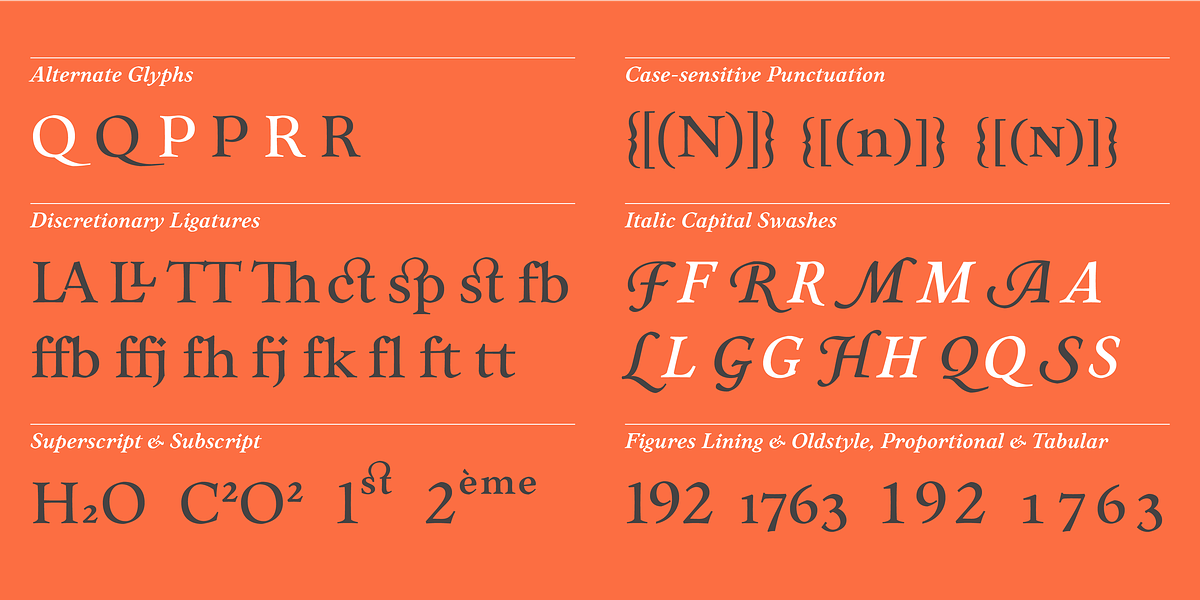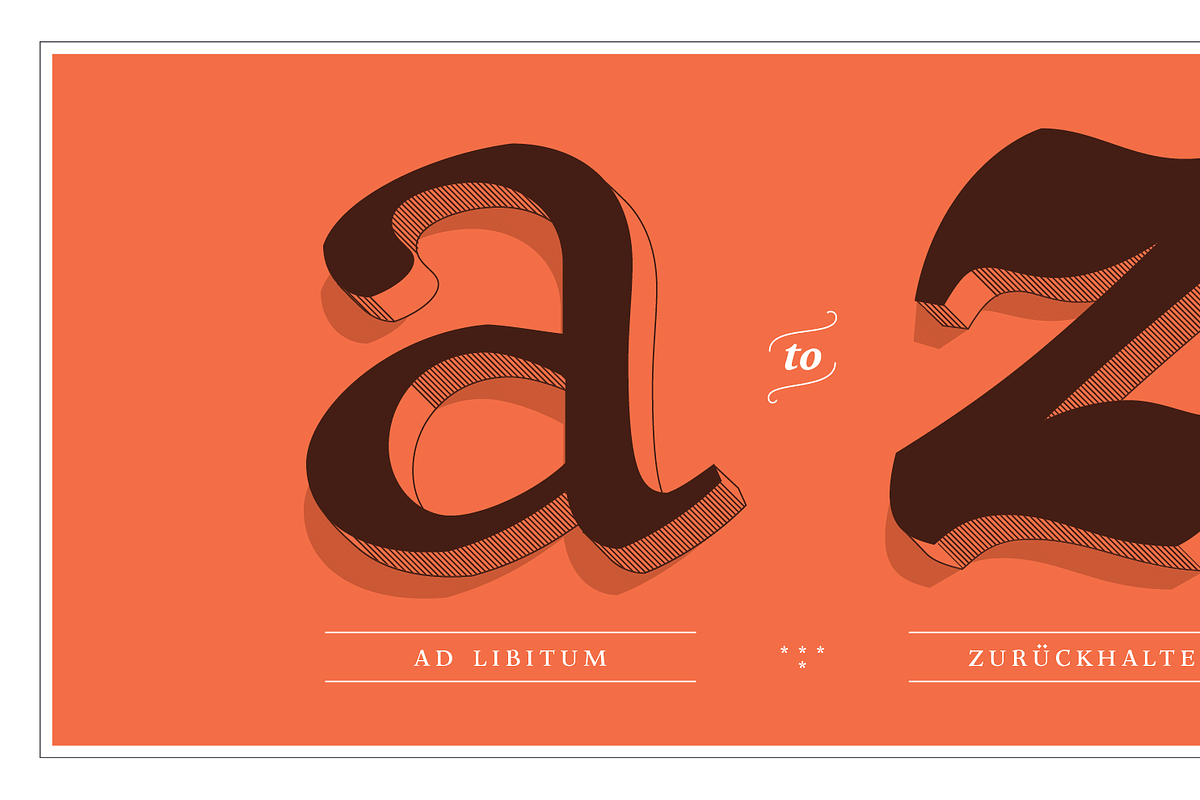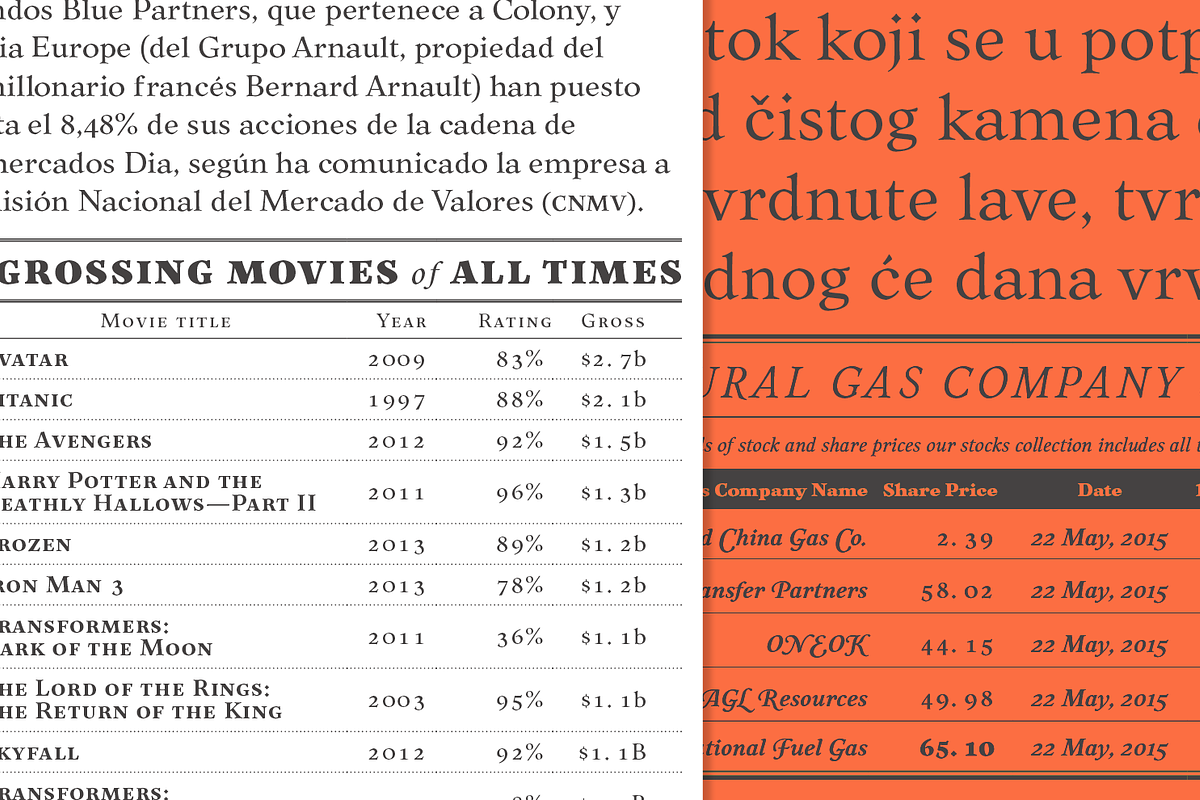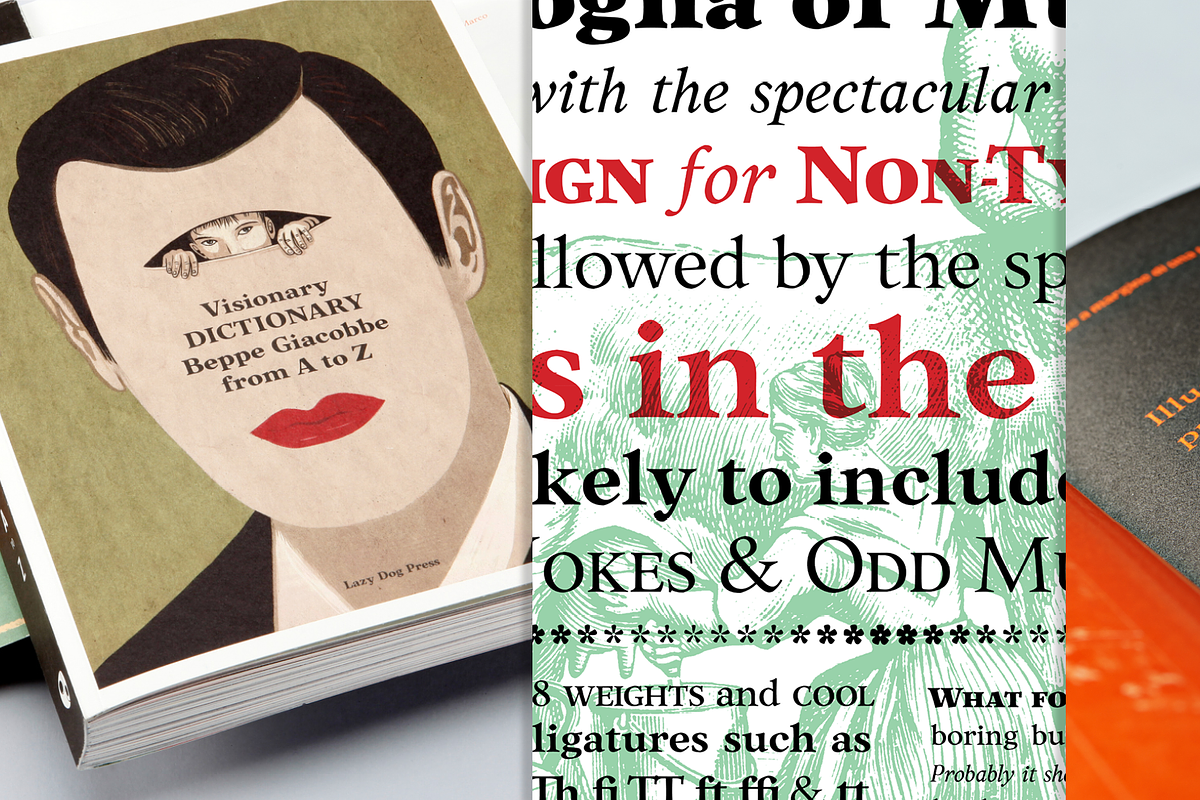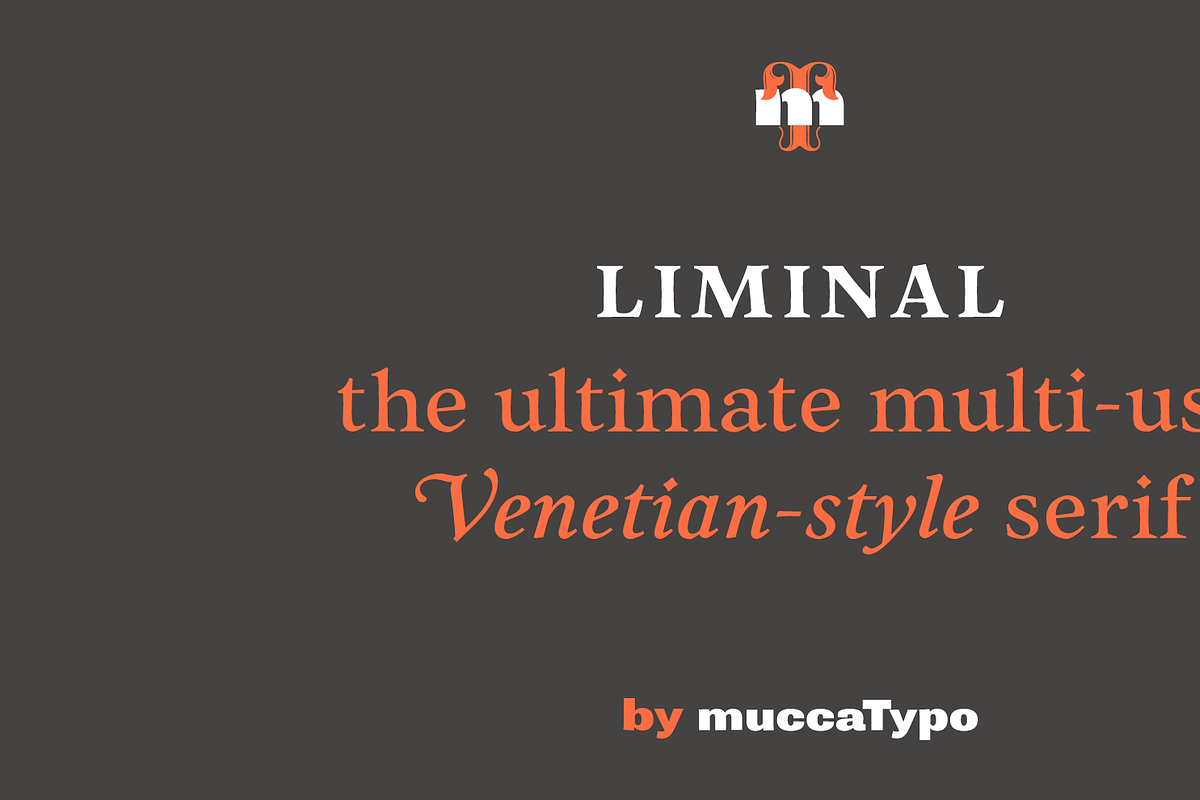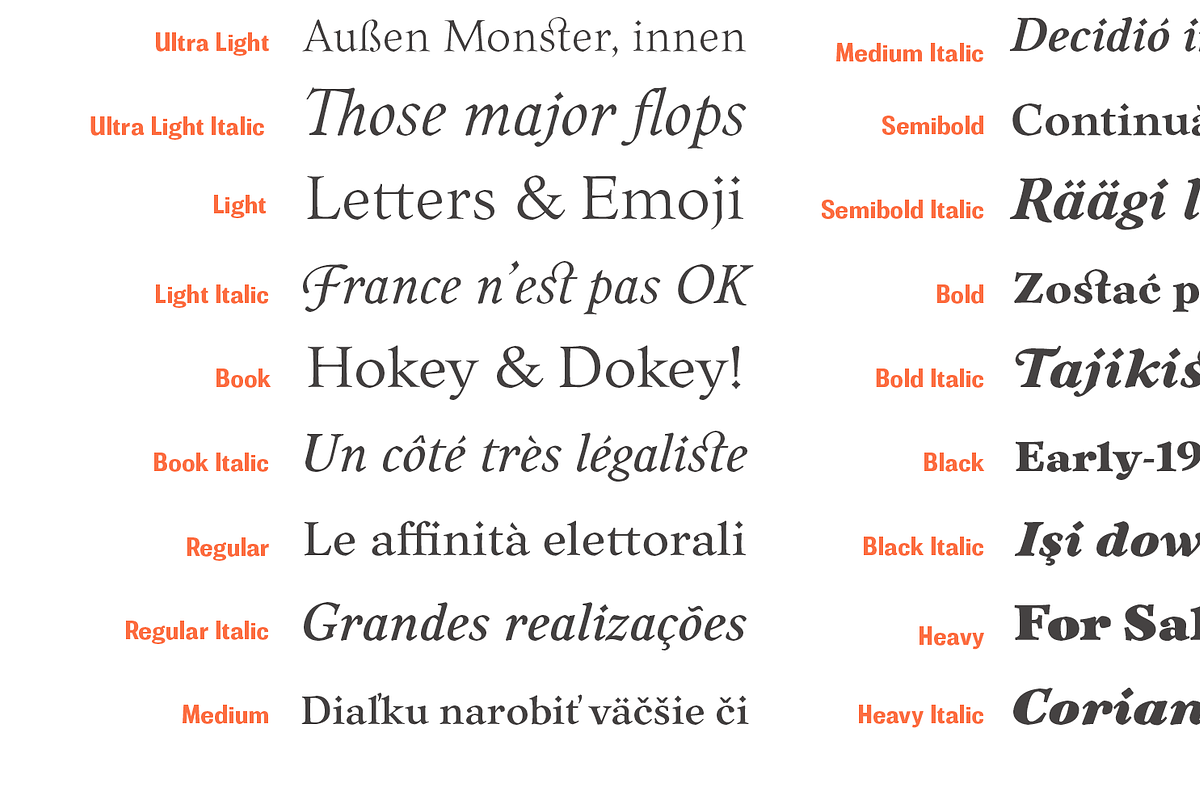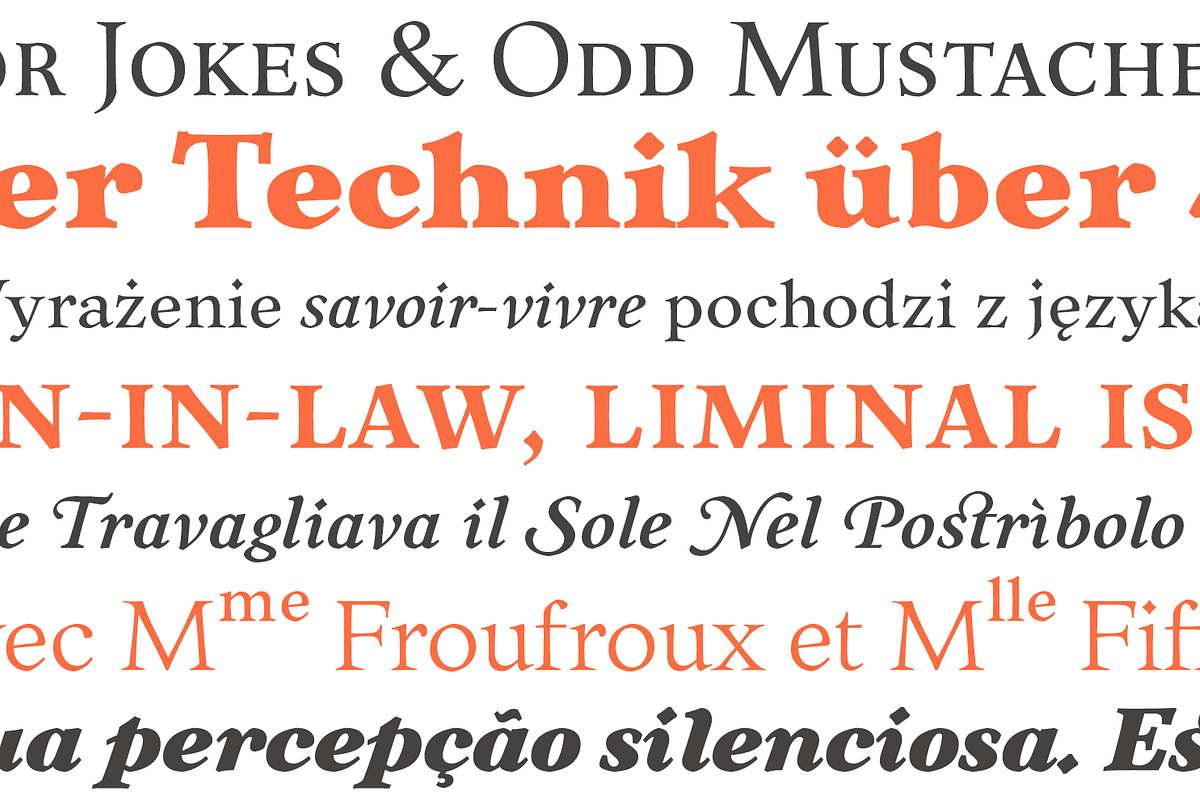
Liminal
Liminal is a serif font inspired by Venetian style typography. Its defining feature is the flared serifs, giving it a classic yet distinctive look. It is well-suited for display purposes such as branding and headlines due to its elegant and eye-catching nature.